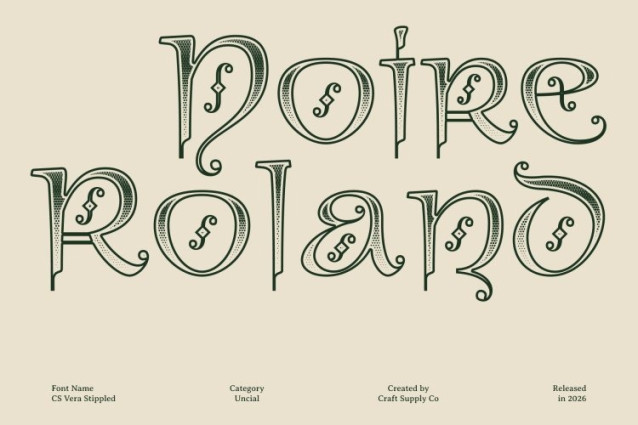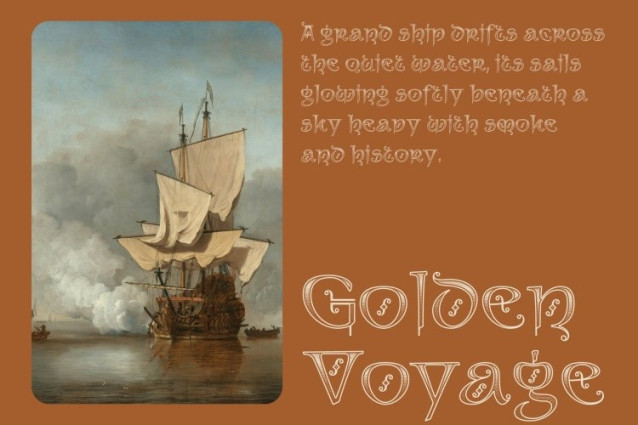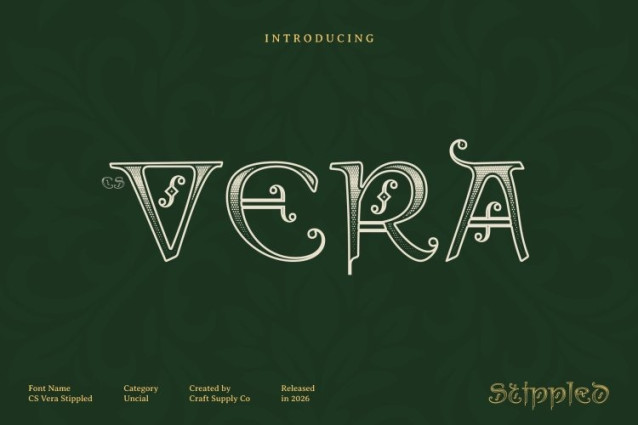
CS Vera Stippled Font
CS Vera Stippled Font is a classic uncial display font inspired by the graceful letterforms of medieval manuscripts. Its elegant curves, balanced proportions, and flowing structure reflect the artistry of historical calligraphy. Enhanced with a stippled texture, the font gains a delicate dotted surface that adds depth and a handcrafted engraved feel, enriching its timeless and nostalgic charm.
Artistic Letterforms with Decorative Detail
The distinctive shapes of this font feature gentle arcs, fine strokes, and subtle decorative flourishes that highlight the beauty of uncial typography. These refined details create a harmonious balance between elegance and readability. The stippled effect enhances the visual richness of the characters, giving the typography a layered and artistic appearance.
Romantic and Nostalgic Atmosphere
With its graceful structure and historical inspiration, this font conveys a romantic and nostalgic aesthetic. The flowing forms evoke the beauty of traditional manuscript lettering, allowing designs to feel refined, expressive, and deeply connected to heritage.
Perfect for Timeless and Elegant Designs
This is ideal for wedding invitations, book covers, editorial titles, heritage branding, and artistic typography. By combining classic uncial forms with a subtle stippled texture, the font delivers a sophisticated and memorable typographic presence that enhances designs with elegance, tradition, and charm.